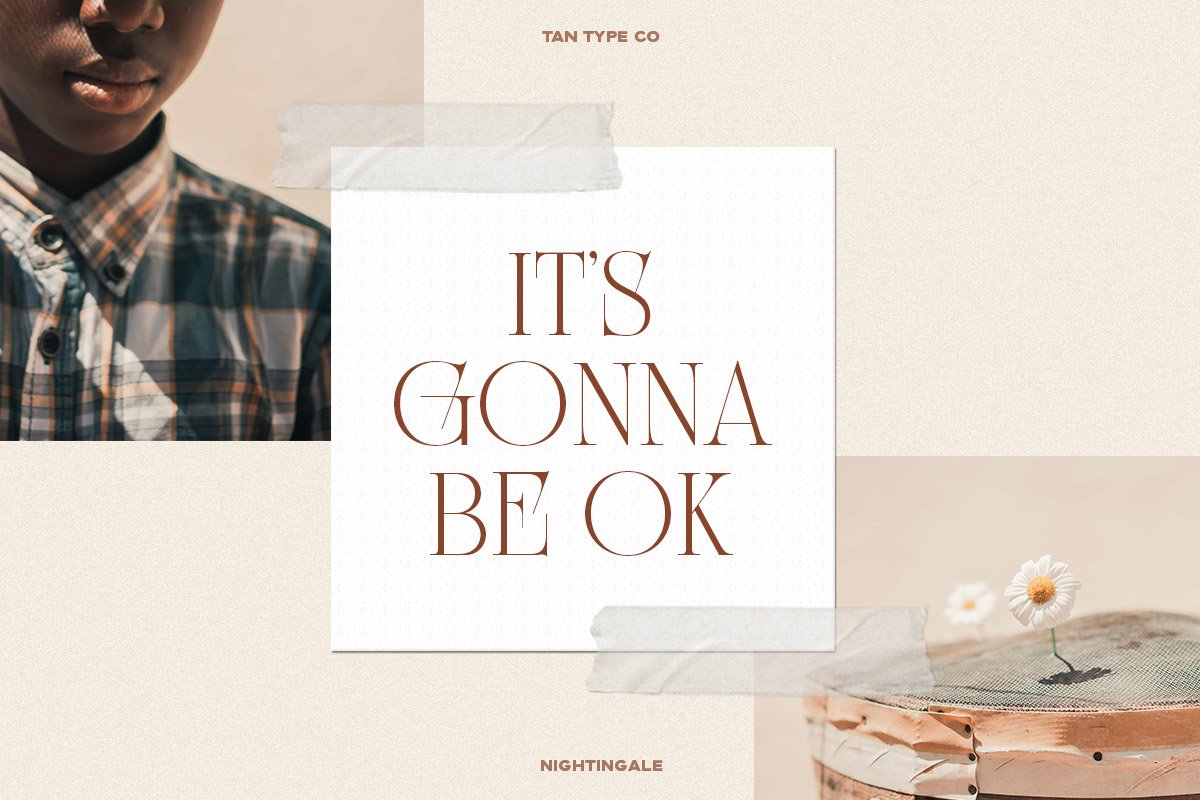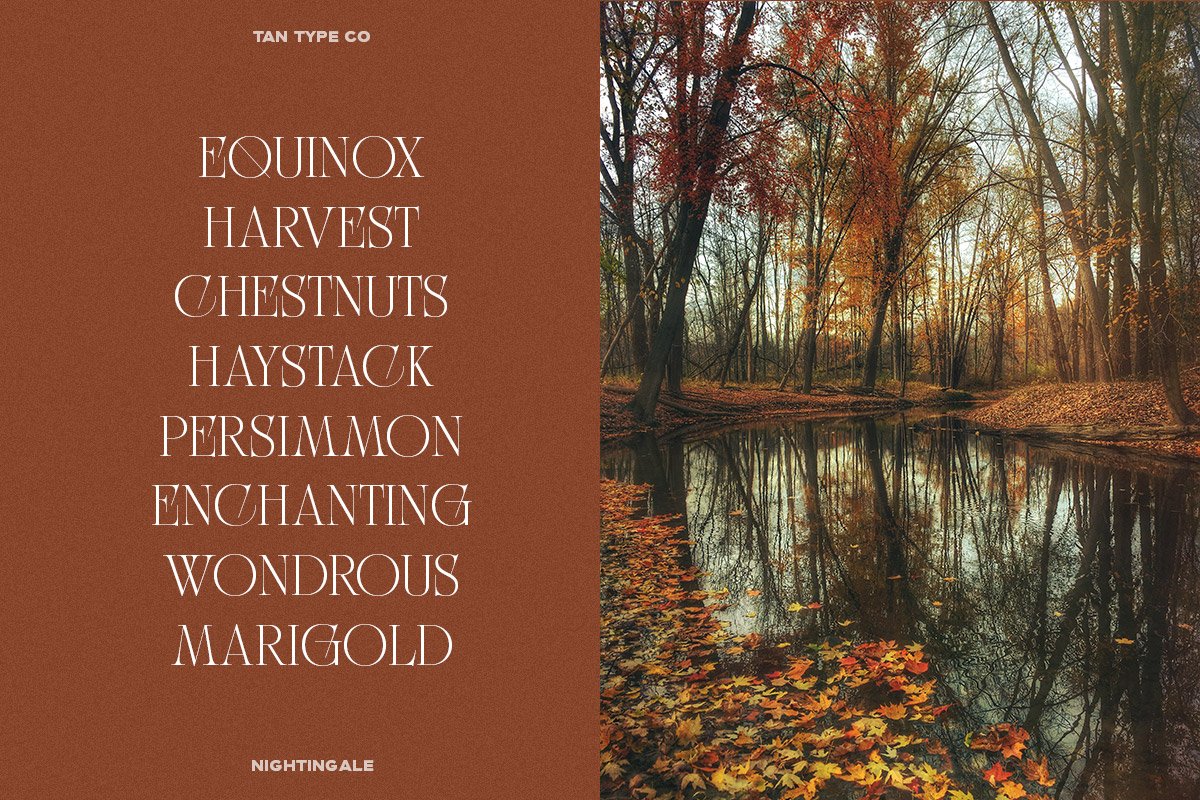
About the TAN NIGHTINGALE Font
TAN – NIGHTINGALE is an art deco inspired with dramatically elongated serif, With its clean and modern feel, Nightingale will definitely adds elegance when used, limited multilingual support, otf / , ttf / , woff2customer support, please contact: tantypeco@gmail, com